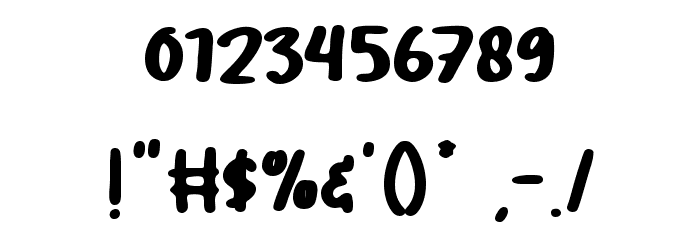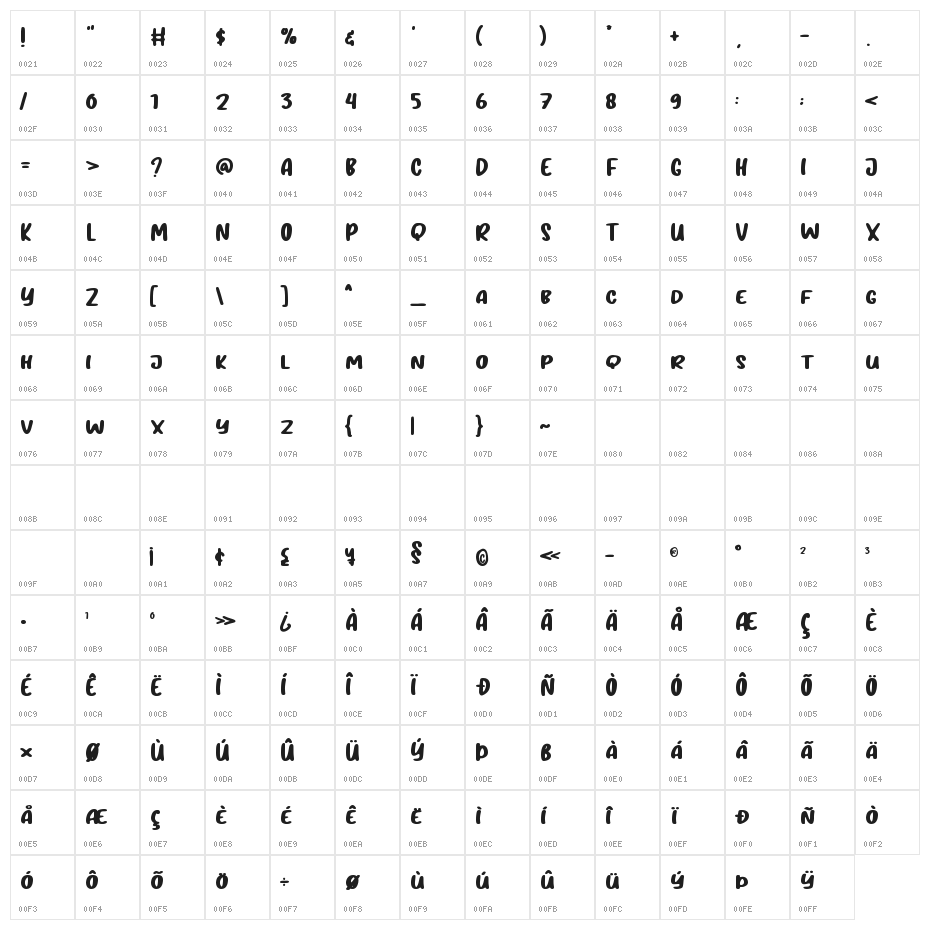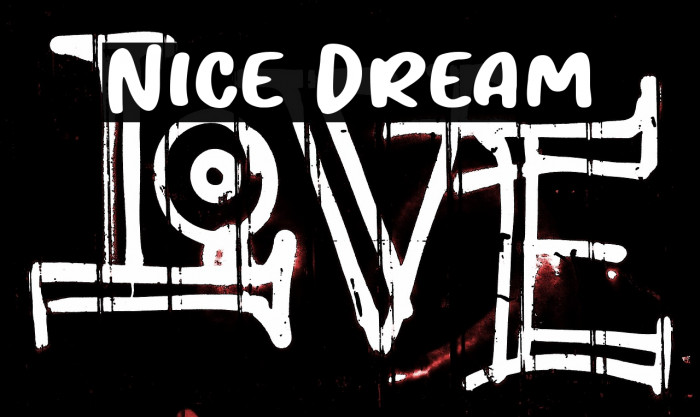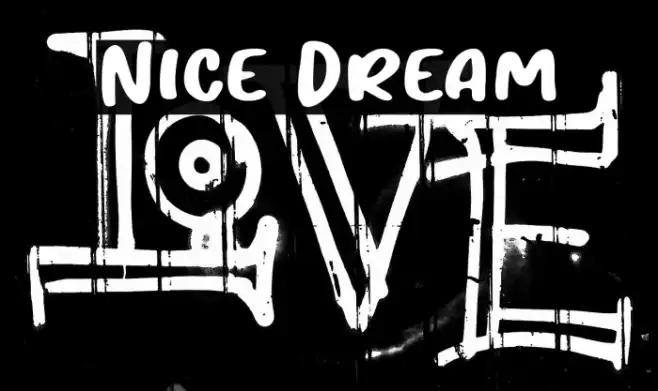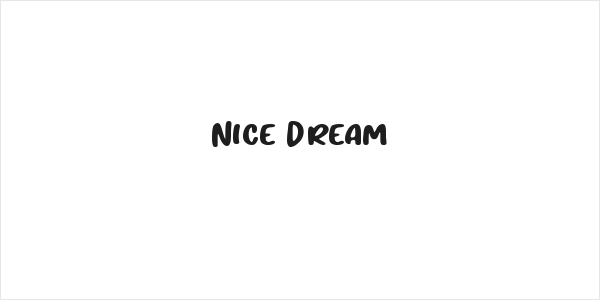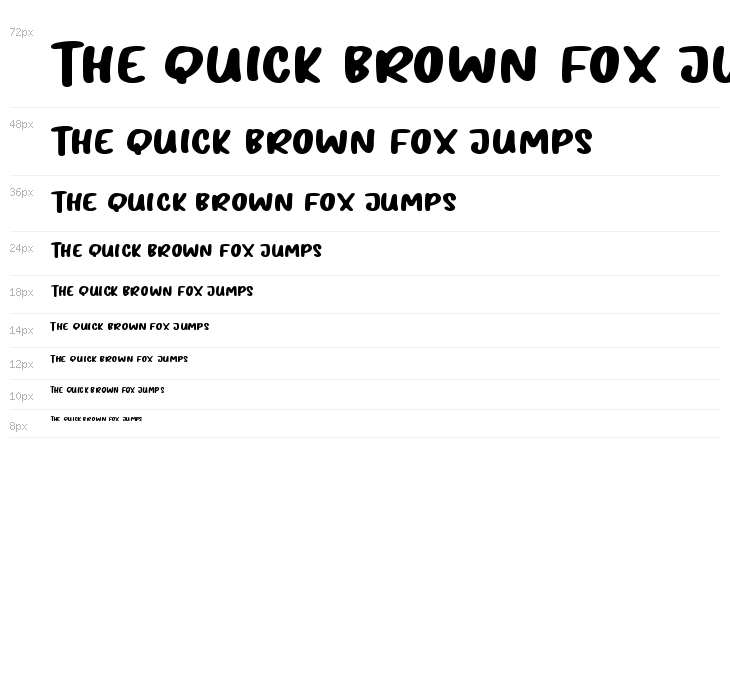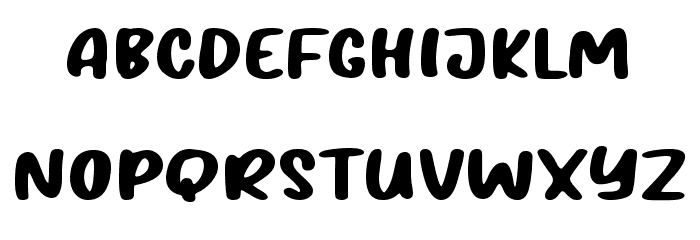
Nice Dream Font
Nice Dream Description
This playful and bold font features rounded, thick strokes that give it a friendly and approachable appearance. The characters are slightly condensed, enhancing readability while maintaining a unique style. The uppercase and lowercase letters share a consistent design, with smooth curves and a casual feel. The numbers and special characters are equally bold, ensuring they stand out in any design. This font's overall look is modern yet whimsical, making it suitable for a variety of creative projects.
| Overall Style | Playful, Modern |
| Proposed Projects | Ideal for children's books, playful branding, posters, and social media graphics. |